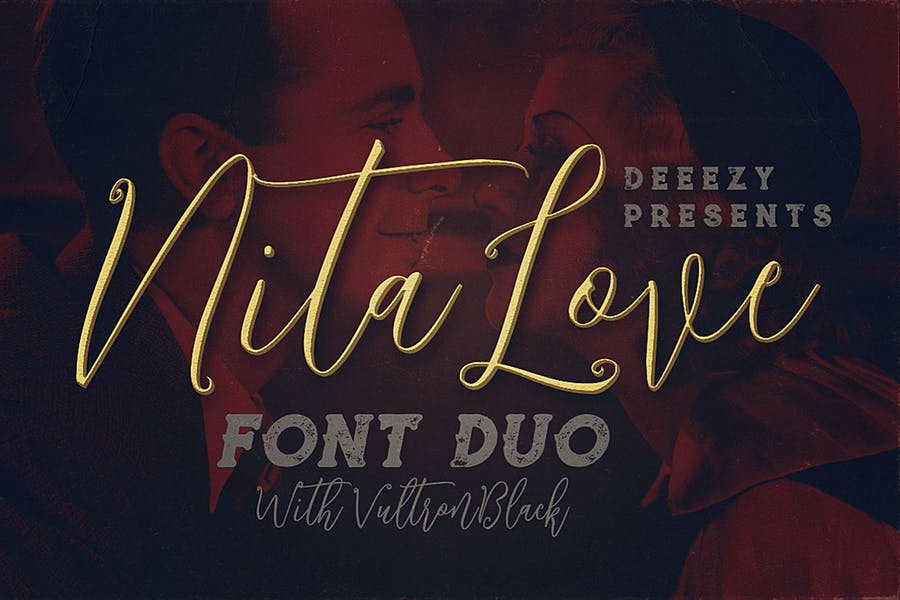
Nitalove Font Duo
Nitalove Font Duo is perfect for romantic wedding invitations, intimate love-themed branding, heartfelt anniversary celebrations, tender greeting card designs, passionate dating services, emotional counseling centers, loving family photography, affectionate social campaigns, romantic retreat marketing, and sentimental lifestyle brands.
Nitalove Font Duo creates excitement because it masterfully captures the pure essence and tender intimacy of true love with its perfectly paired typefaces that embody both passionate romance and gentle affection. The font duo's complementary styles instantly convey deep emotional connection and heartfelt devotion, making any brand appear genuinely loving and authentically romantic. Its carefully balanced contrast between passionate intensity and tender gentleness creates an immediate emotional bond that resonates with couples seeking authentic love expression, meaningful relationships, and products that celebrate the transformative beauty of genuine love and romantic connection.
The Nitalove Font Duo family includes multiple weights and styles across both fonts: Script, Sans, Regular, Bold, Light, Medium, Italic, Romantic, Condensed, and Passionate versions. Each variant maintains the duo's signature loving character while offering comprehensive design flexibility for romantic brand systems requiring both emotional depth and tender sophistication.
This enchanting typeface pair represents the perfect harmony of passionate love with gentle intimacy for contemporary romantic brands and love-focused organizations. Nitalove Font Duo Free Download provides romantic enterprises and love-centered professionals with access to premium dual typography that captures the essence of authentic love and emotional connection. The font duo's loving harmony and romantic balance make it ideal for creating memorable experiences that celebrate the profound beauty of love relationships and emotional intimacy. Whether you're developing comprehensive wedding identity systems, creating materials for romantic services, designing communications for relationship platforms, or producing content for love-themed enterprises, this font duo delivers the romantic authenticity that resonates with couples seeking genuine love expression, emotional connection, and the heartfelt experiences that make love truly meaningful. Its versatile pairing ensures outstanding performance across both precious printed romantic materials and tender digital love platforms while maintaining perfect harmony between passionate romance and gentle affection. The fonts excel in applications requiring emotional credibility and romantic appeal. Love and relationship professionals appreciate the duo's ability to convey sincere affection while inspiring romantic celebration, essential qualities for building trust with couples seeking authentic love experiences. The comprehensive character sets include loving flourishes and extensive international language support, making it perfect for global romantic brands and international love services seeking to communicate authentic emotional connection, passionate romance, and tender affection to diverse worldwide couples who cherish meaningful relationships, celebrate true love, and embrace the beautiful journey of romantic partnership filled with emotional intimacy, passionate connection, and the endless possibilities that come from sharing life with someone who truly understands and loves you completely.